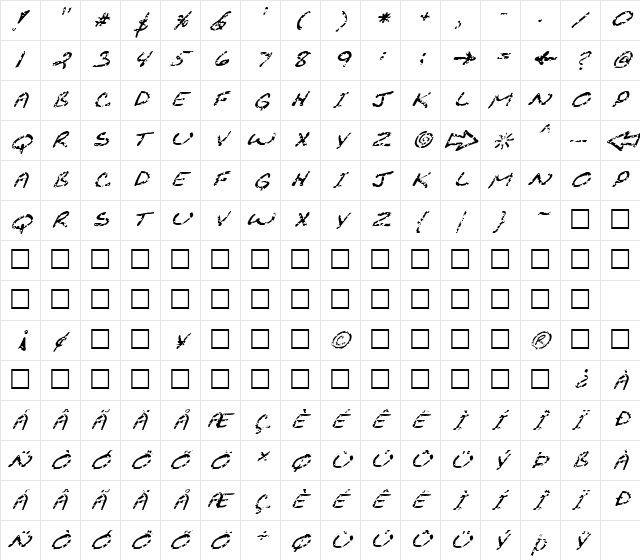
FZ JAZZY 29 HOLEY ITALIC Bold Font Preview
FZ JAZZY 29 HOLEY ITALIC Bold
FZ JAZZY 29 HOLEY ITALIC Bold Font Details
Design Context for FZ JAZZY 29 HOLEY ITALIC Typeface
FZ JAZZY 29 HOLEY ITALIC is a composed and adaptable typeface that performs quietly and consistently across a wide range of design contexts. The slanted form adds forward momentum and visual energy. Its bold stroke weight gives it real presence on the page.
Pro Tip: Use FZ JAZZY 29 HOLEY ITALIC for emphasis, pull quotes, and subheadings where its slanted energy can add rhythm to the layout.